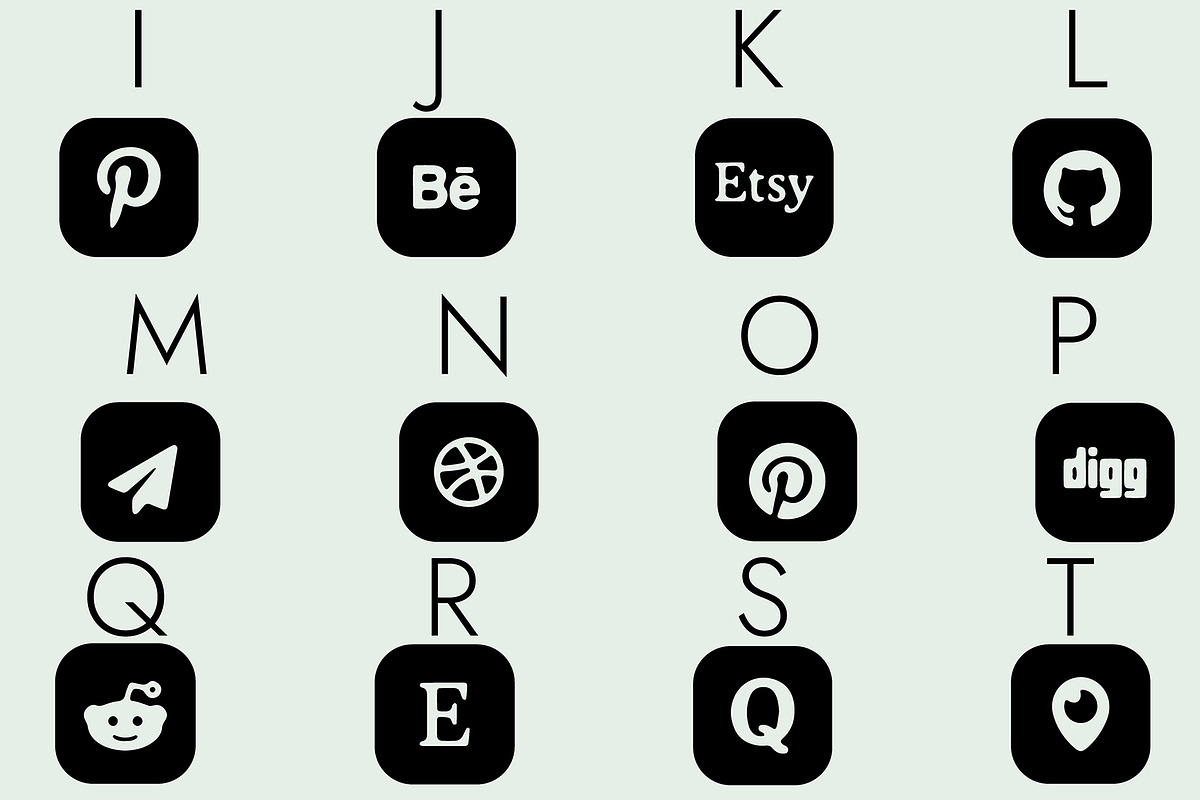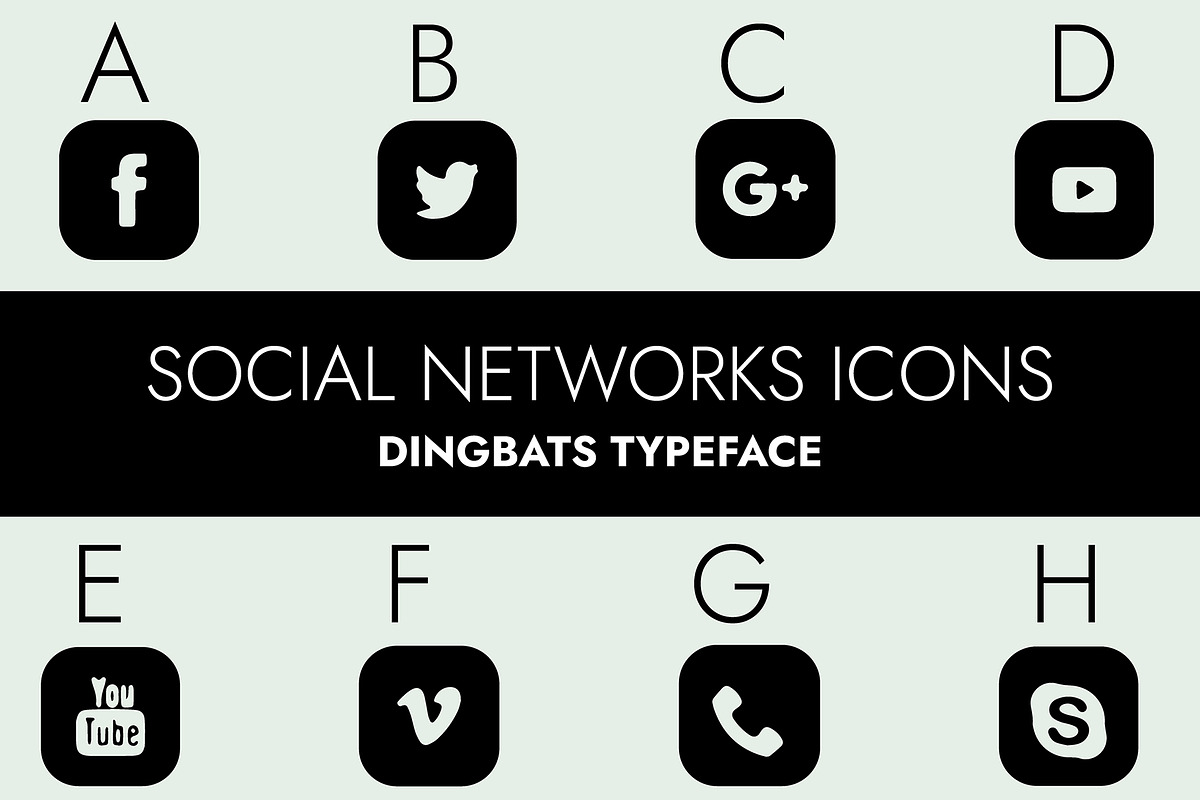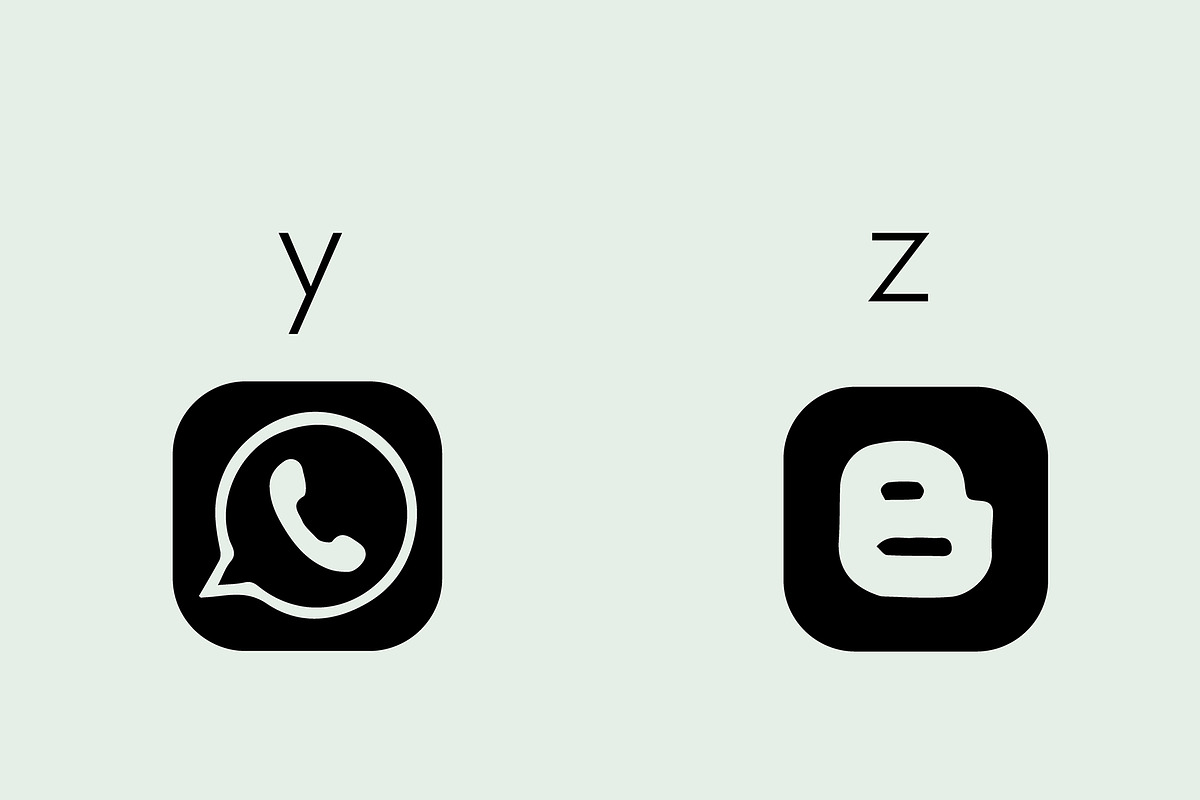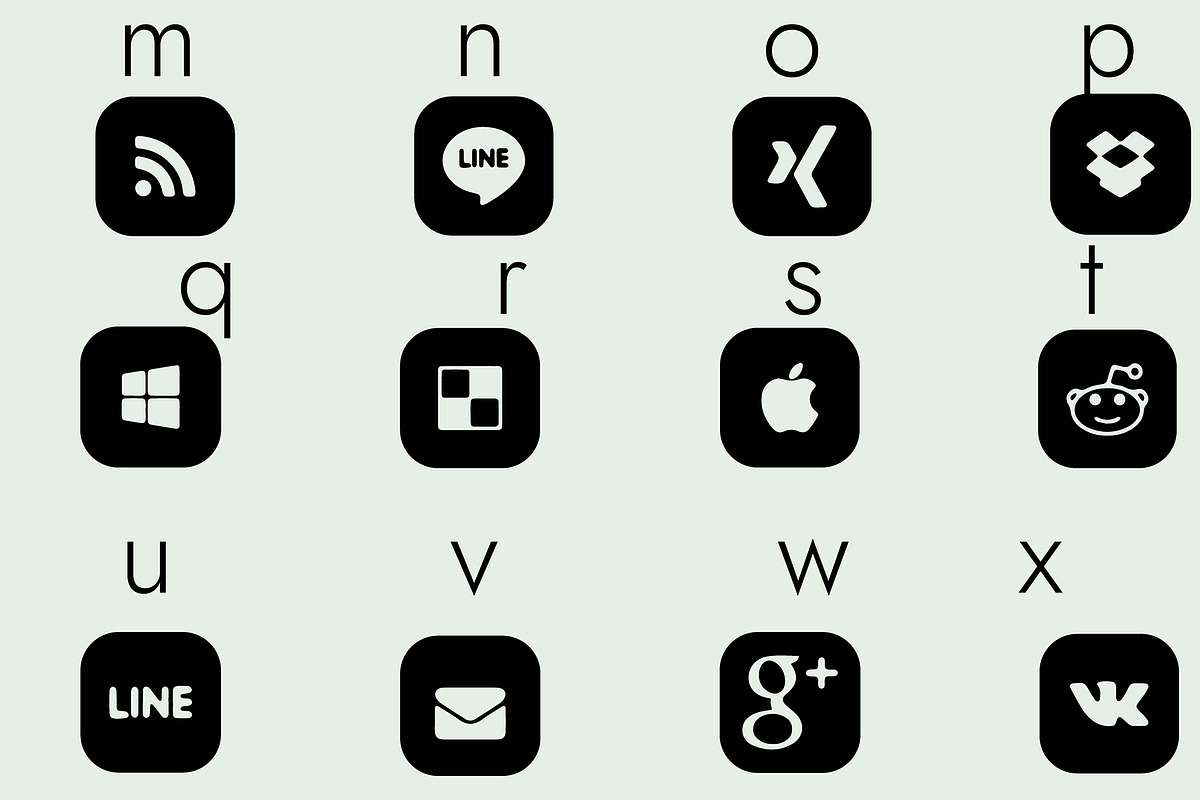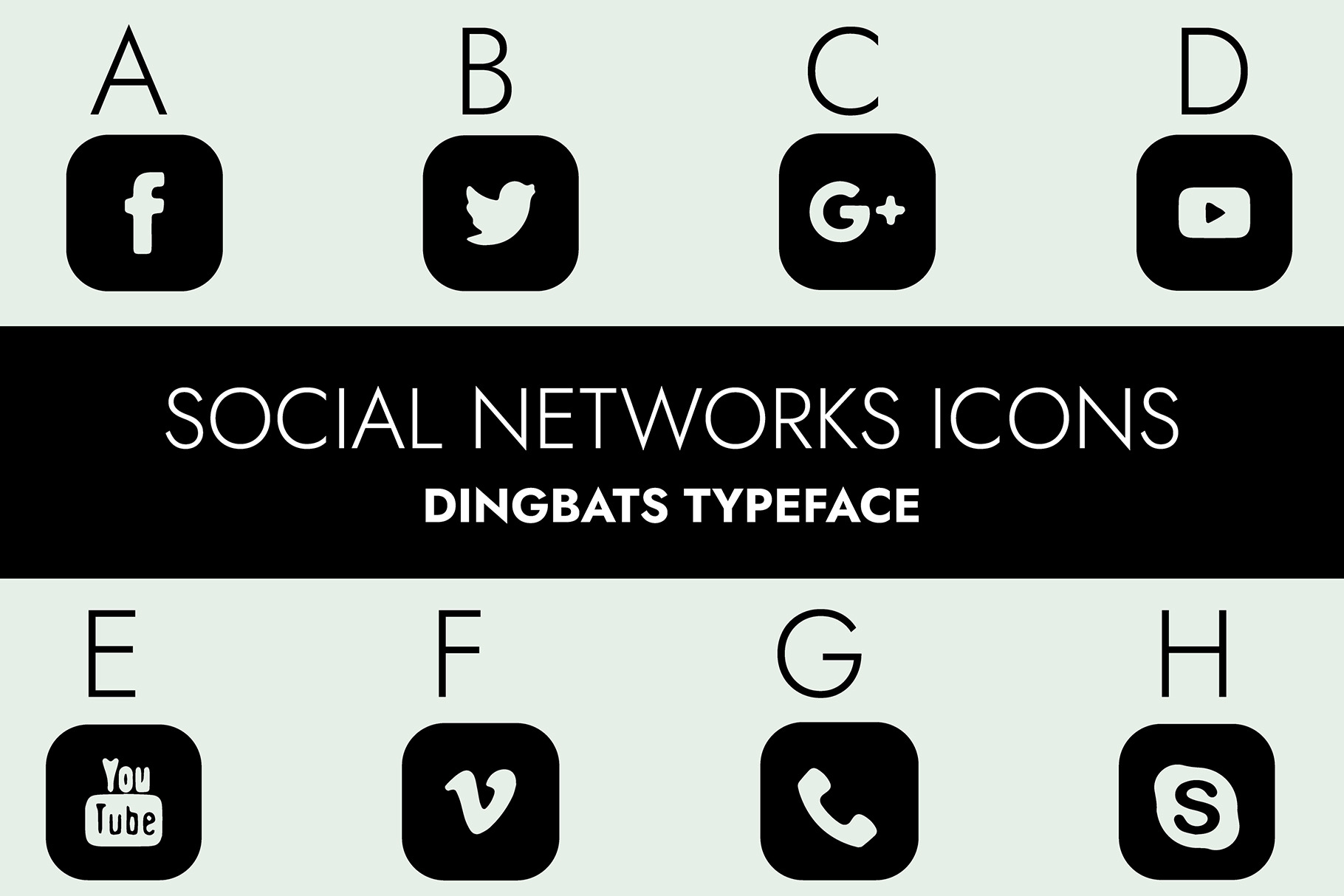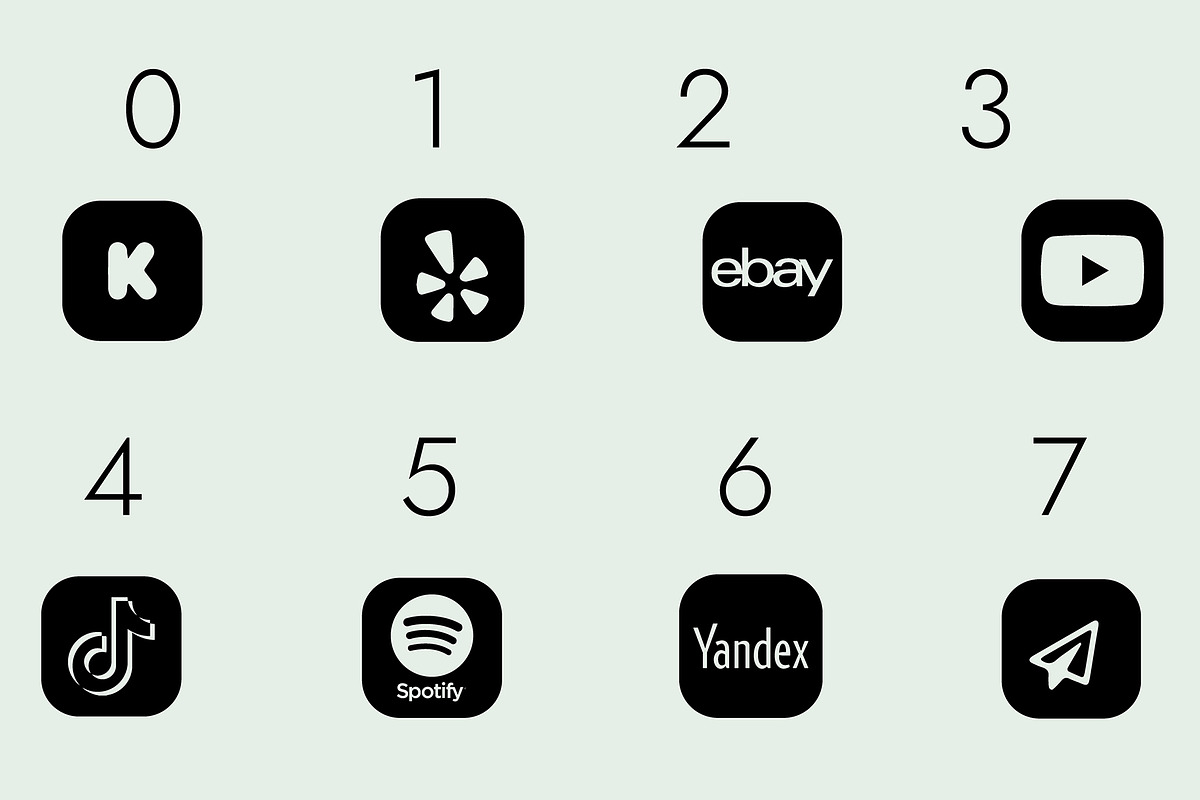
Social Networks Icons Dingbats Font
Social Networks Icons is a cool dingbats font designed to make your life easy. You can generate various social media icons to suit every design need you have!